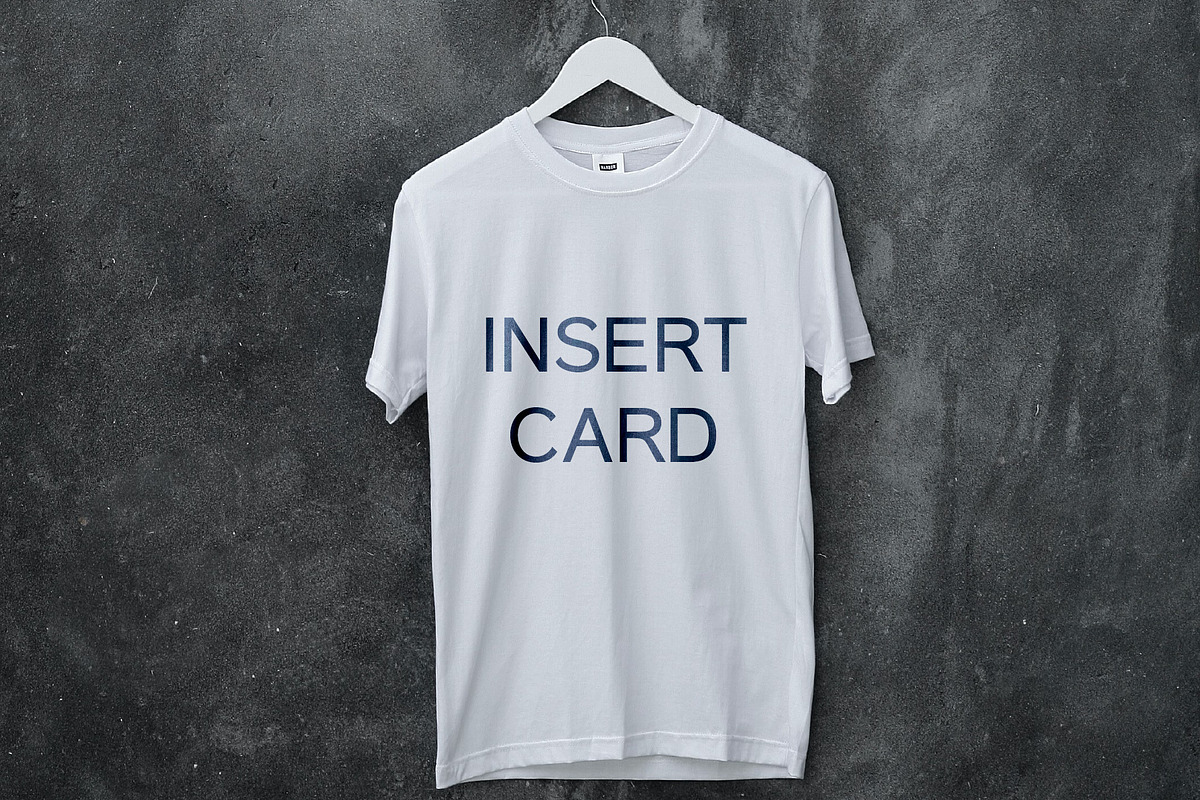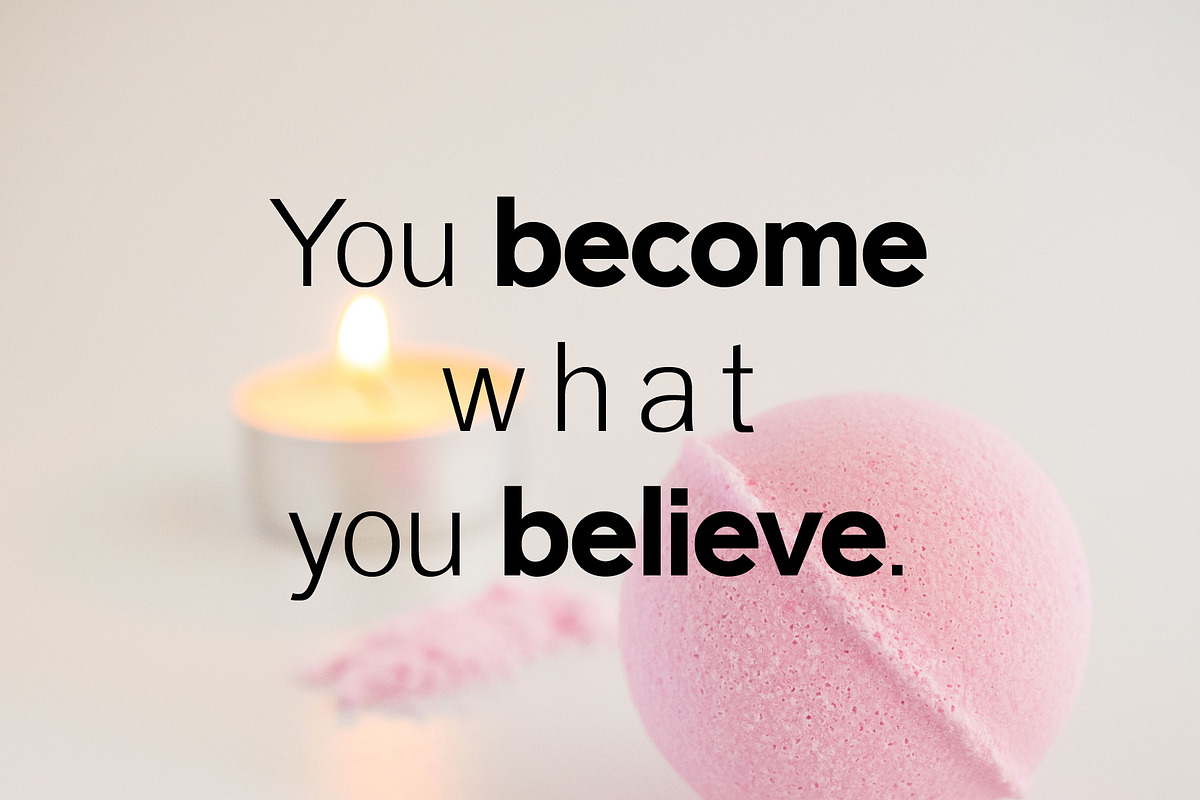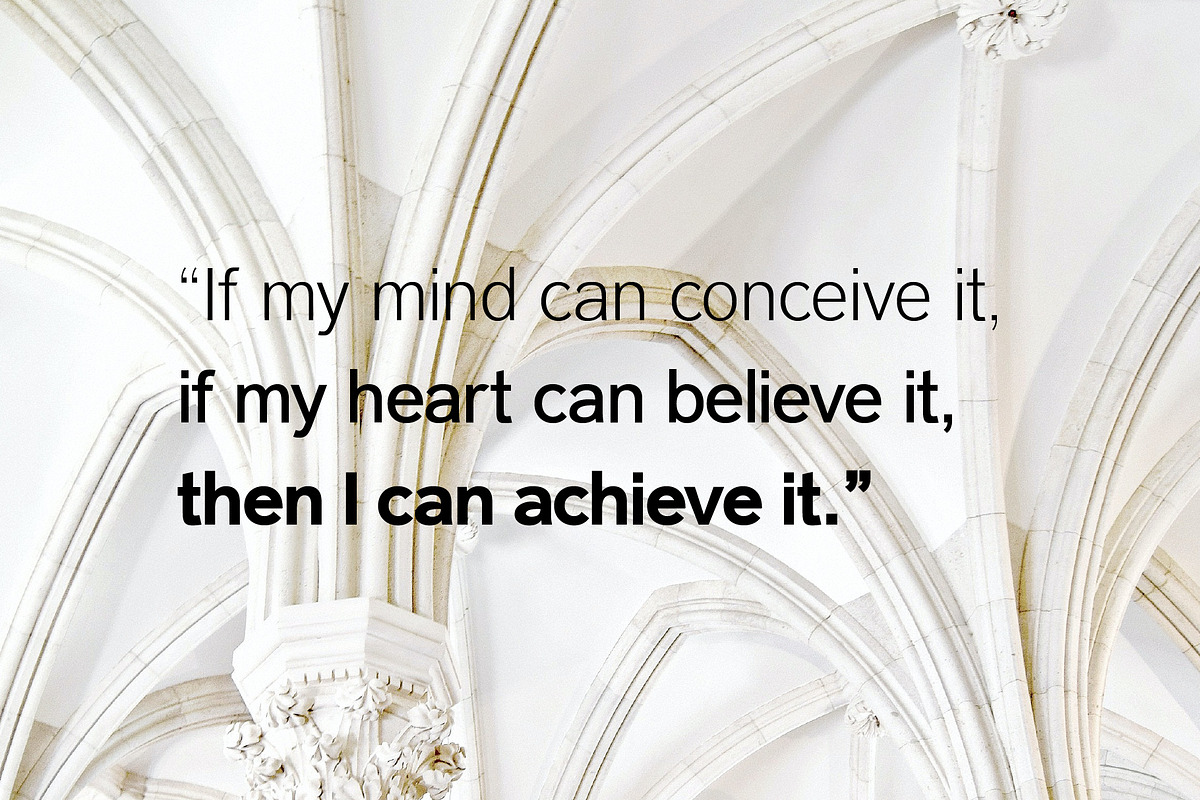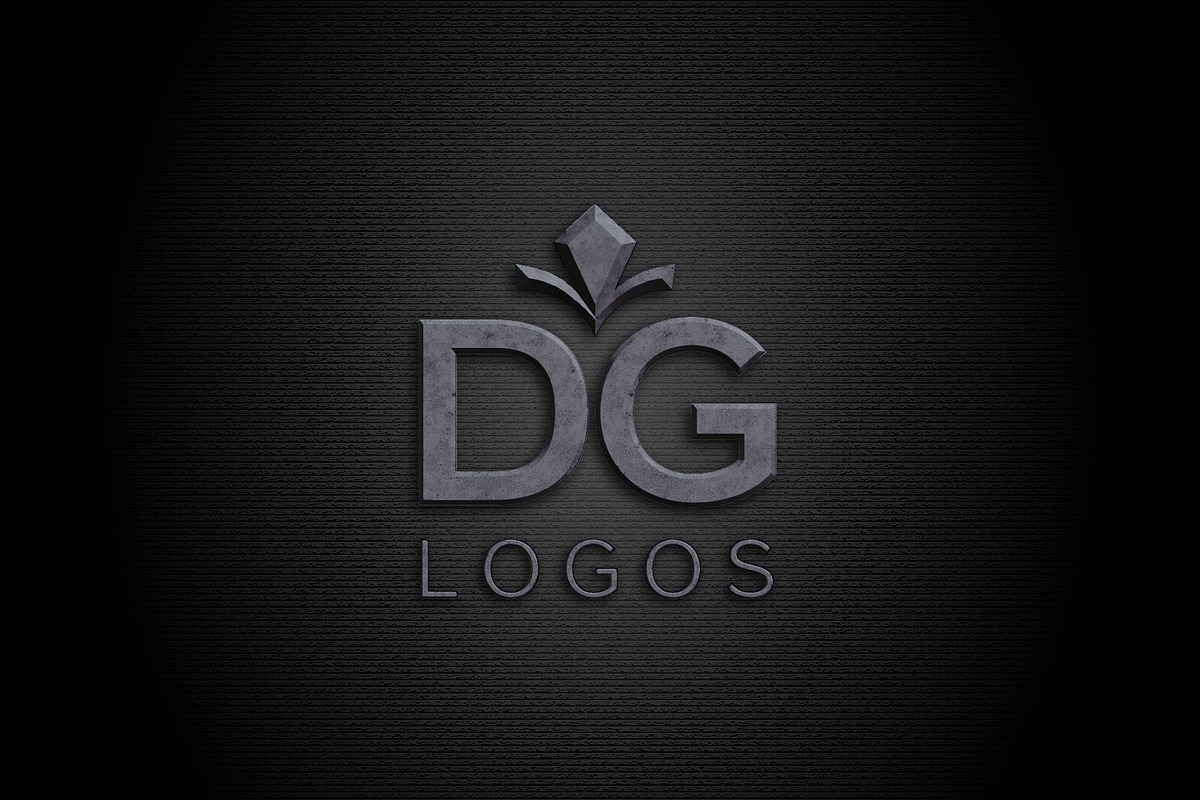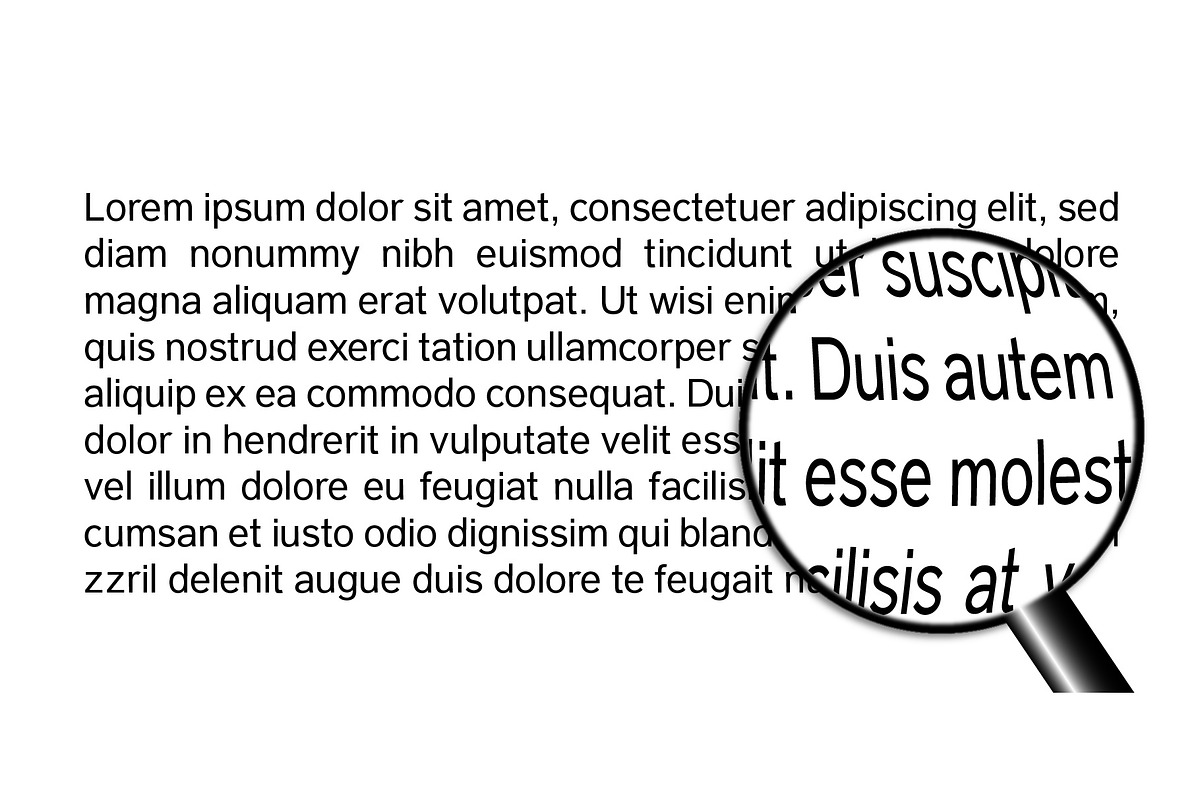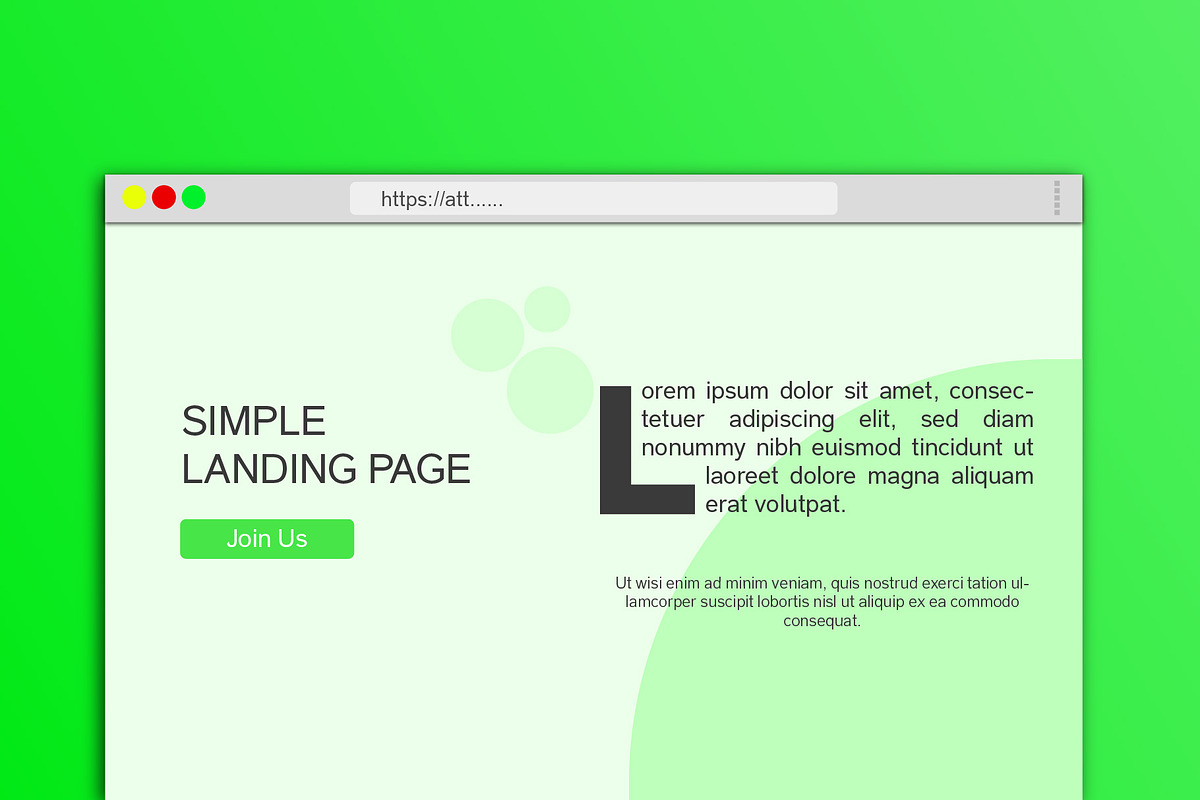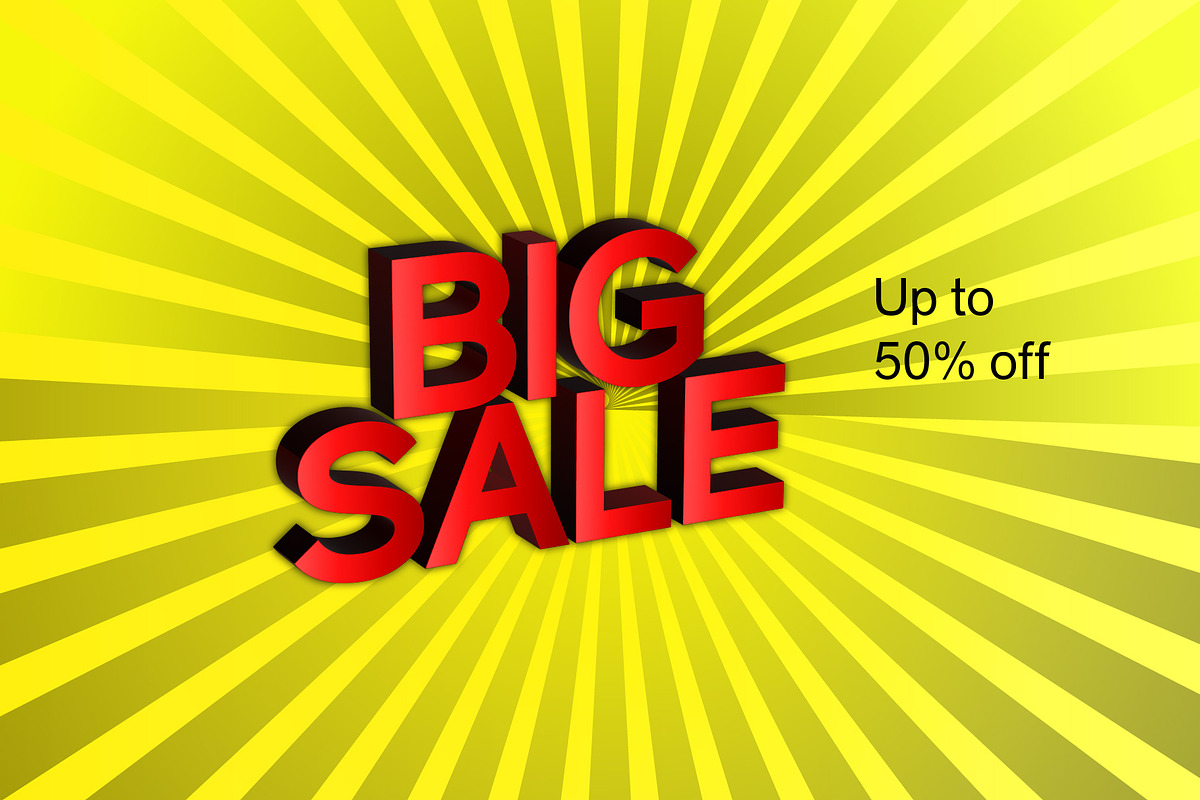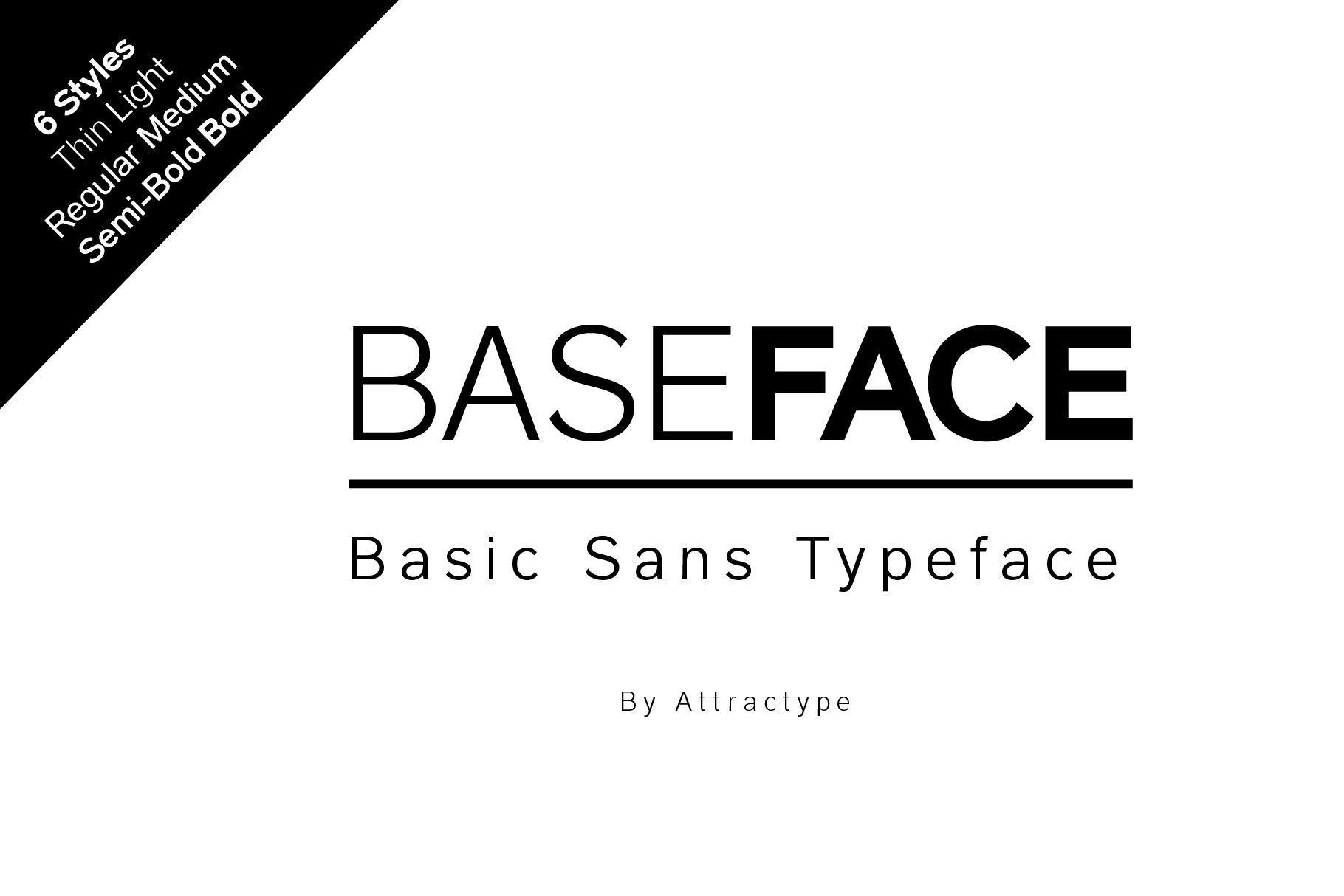
Baseface - Base Sans Font Family
Baseface is a sans serif font family with a basic shape, simple and clean design. With a choice of six font styles, it is suitable for various typography designs, general text, text effects, logos, web pages, lettering, laser cutting, t-shirt design and others.